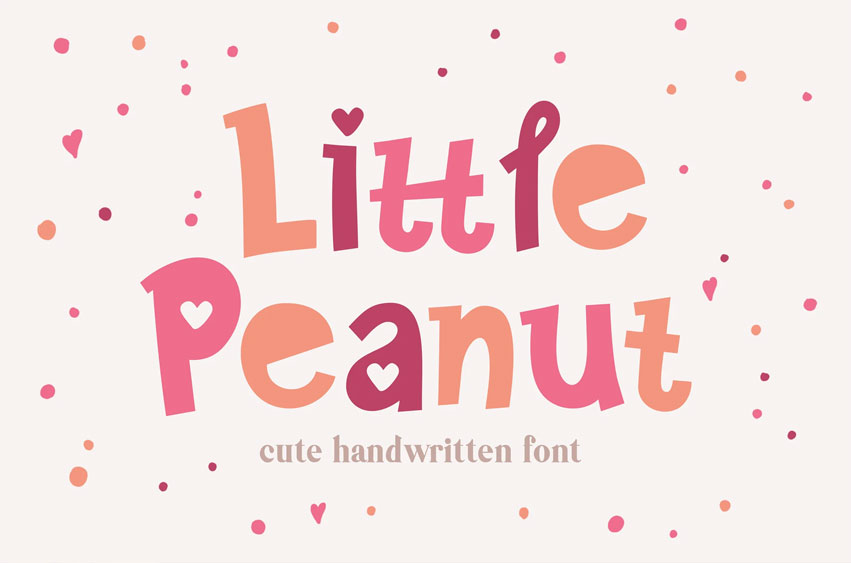
Little Peanut Font
Little Peanut Font is a Cute Handwritten Font.
It fits in headlines, logos, posters, flyers, invitations, name cards, branding materials, print media, editorial layouts, and many more.